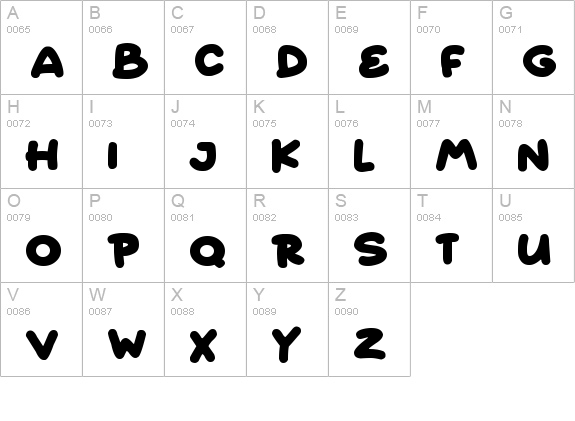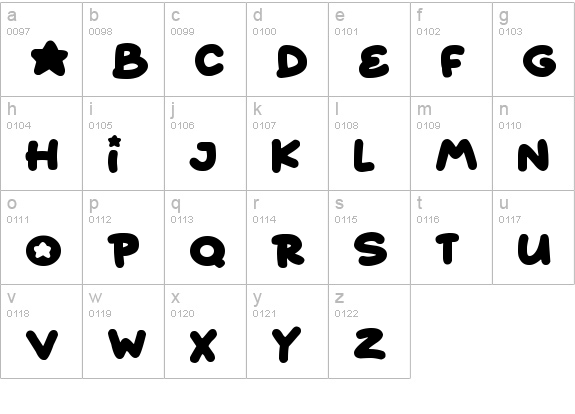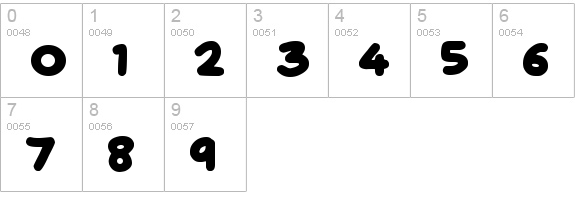
Starborn Font Details
Starborn is a donationware font in the Fancy > Comic category, designed by Darrell Flood. It has been downloaded 76 times and is available for Windows, Mac and Linux.
Starborn font is a stunning display typeface that exudes elegance and modernity. Its sleek lines and unique shapes make it perfect for a wide range of design projects, from branding to packaging and beyond. With its eye-catching aesthetic and versatility, Starborn font is sure to make your designs stand out from the crowd.